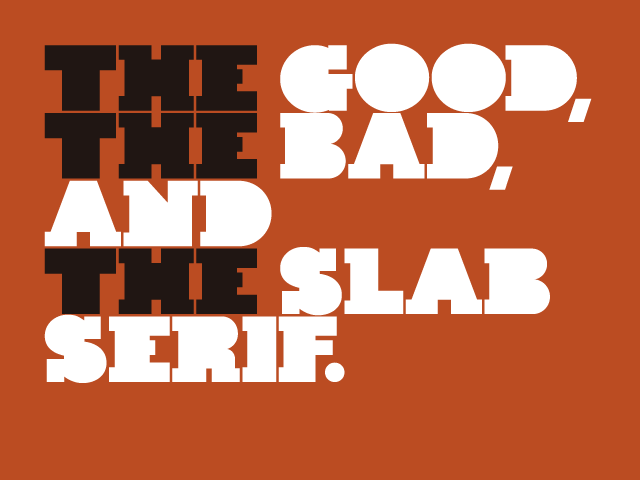
Font name: | Kaine Block |
Author: | The Northern Block |
Note by The Northern Block | |
A bold slab-serif typeface influenced by Spagetti Western posters of the 1960's. |